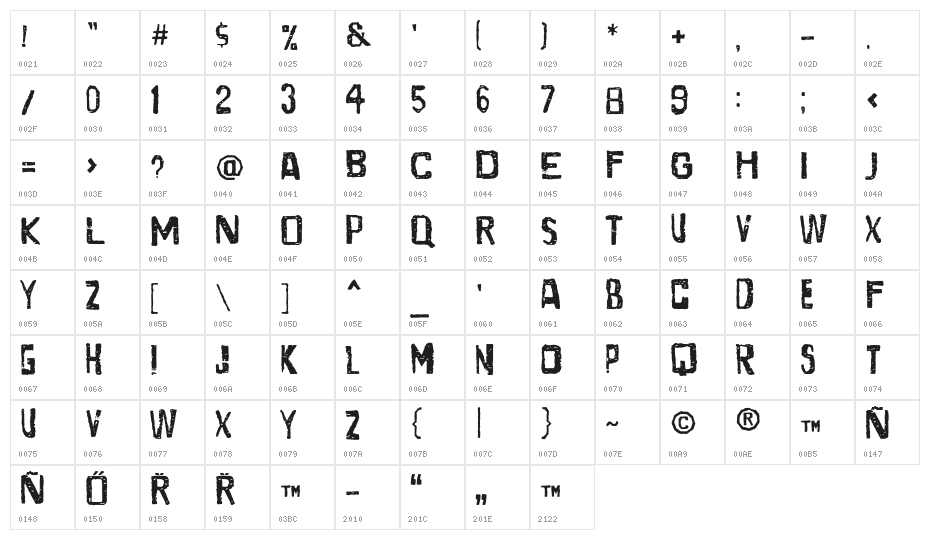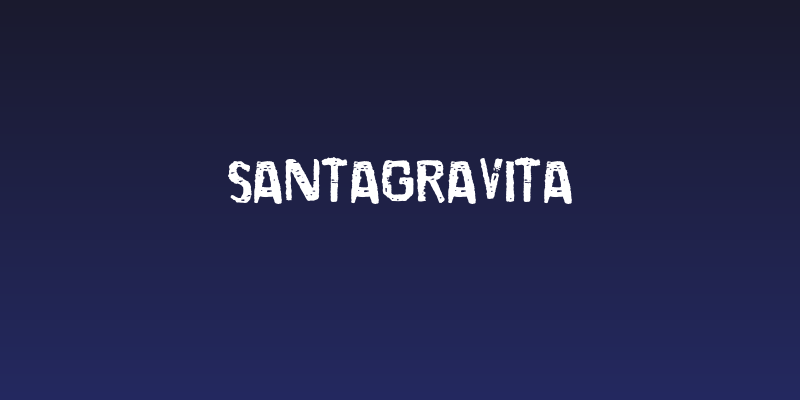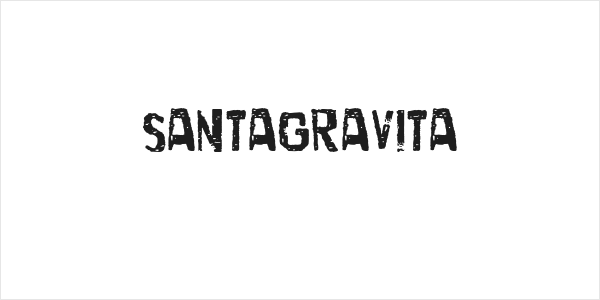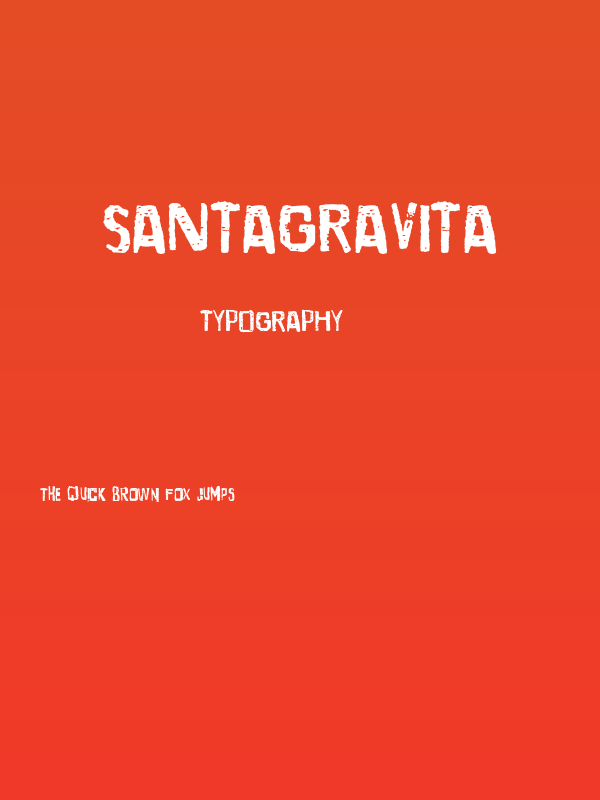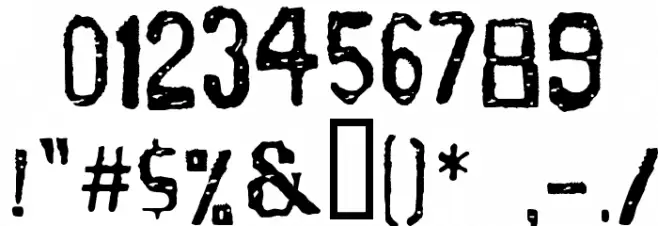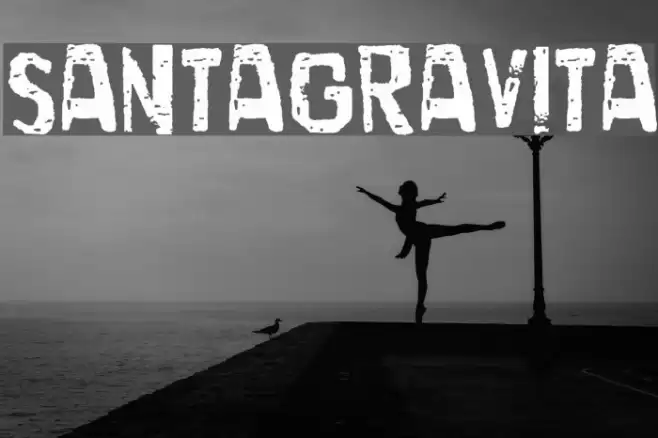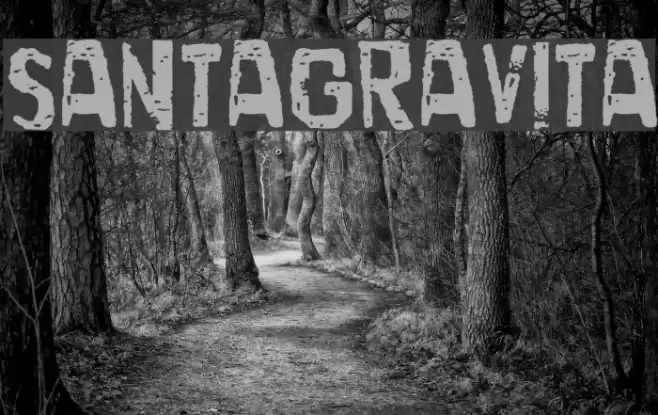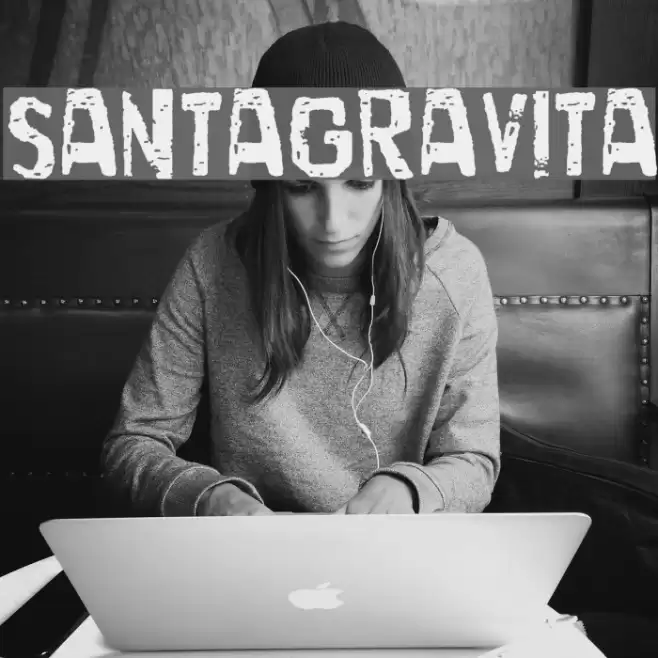
SantaGravita Font
SantaGravita Description
This font features a rugged, distressed appearance, giving it a raw and edgy feel. The characters are bold and heavily textured, resembling a worn-out stamp or a weathered print. The uppercase and lowercase letters maintain a consistent style, with rough edges and irregularities that add to its unique character. The numbers and special characters follow the same aesthetic, ensuring a cohesive look across all glyphs. This font is ideal for projects that require a bold statement or a vintage, grunge-inspired design.
| Overall Style | Vintage, Grunge |
| Proposed Projects | Perfect for album covers, posters, branding for edgy or alternative products, and any design needing a grunge or vintage touch. |